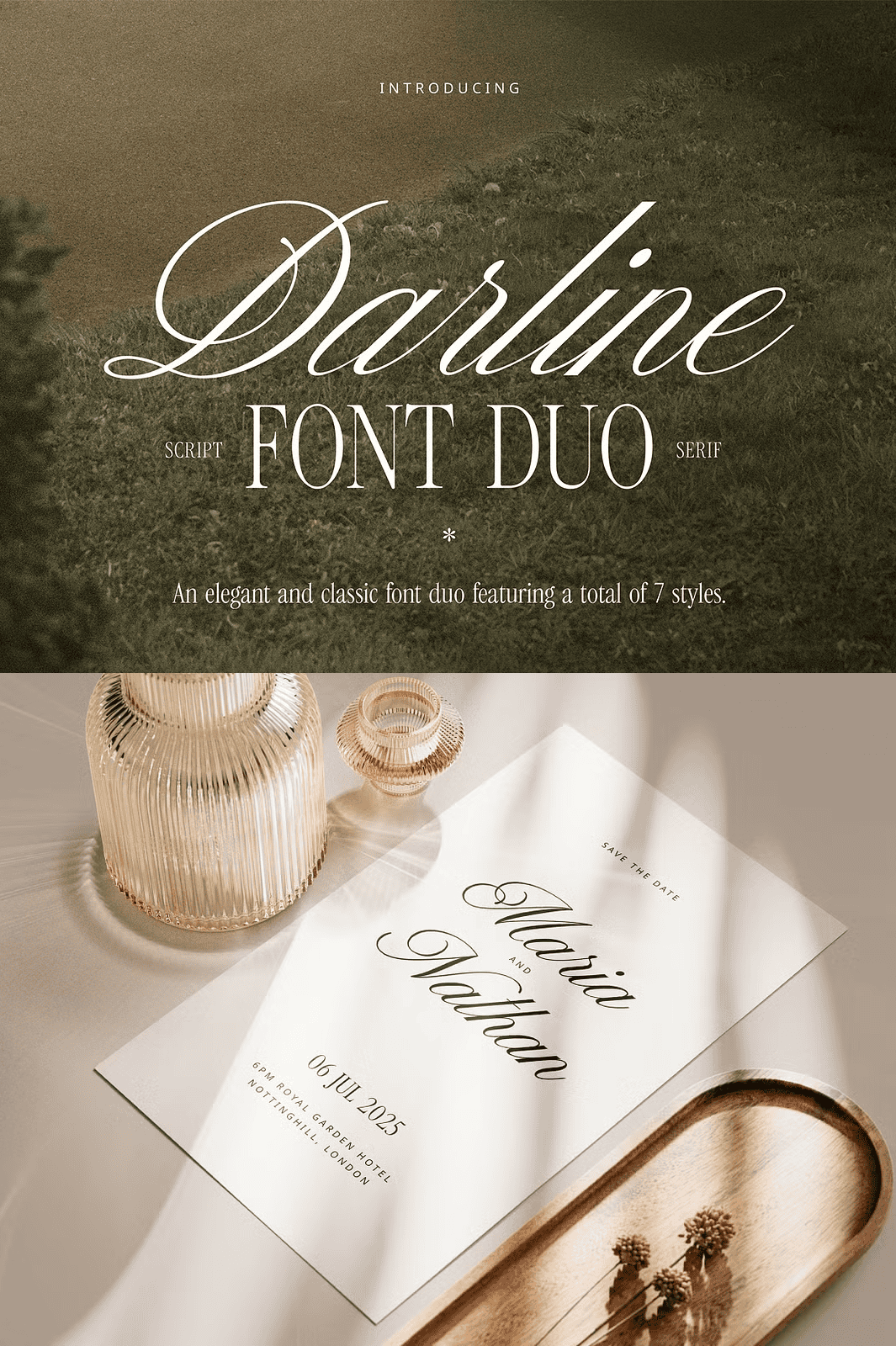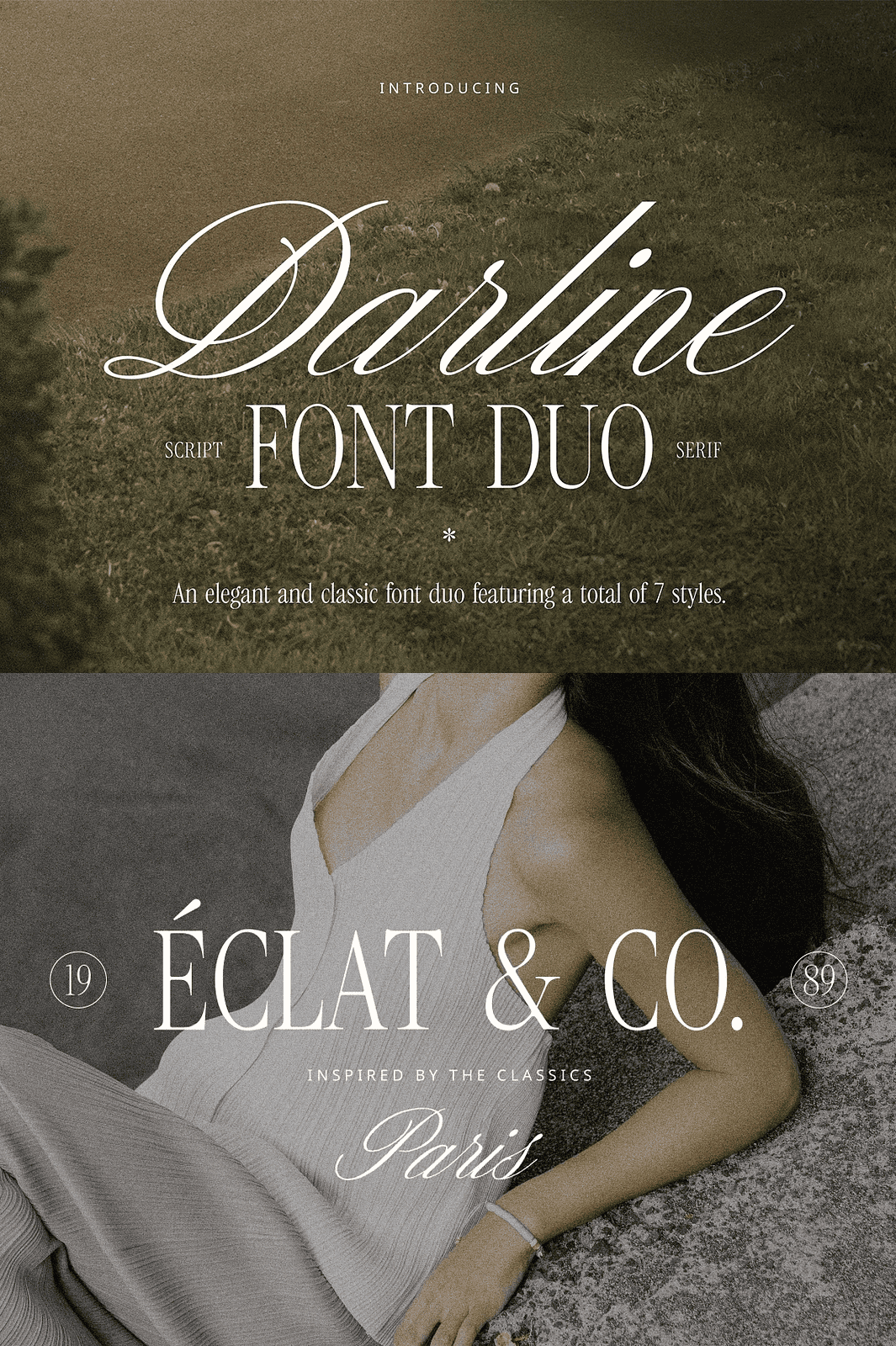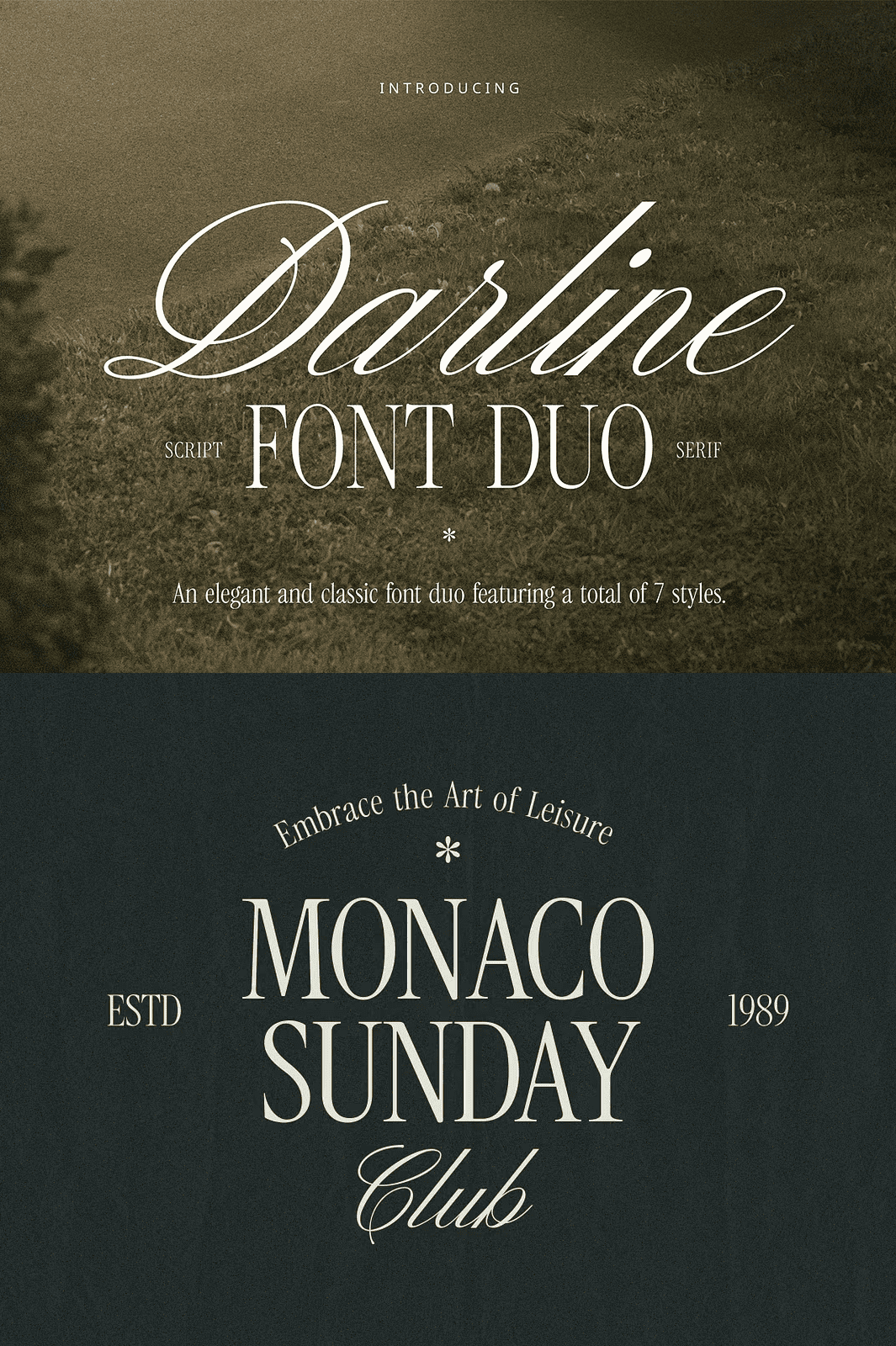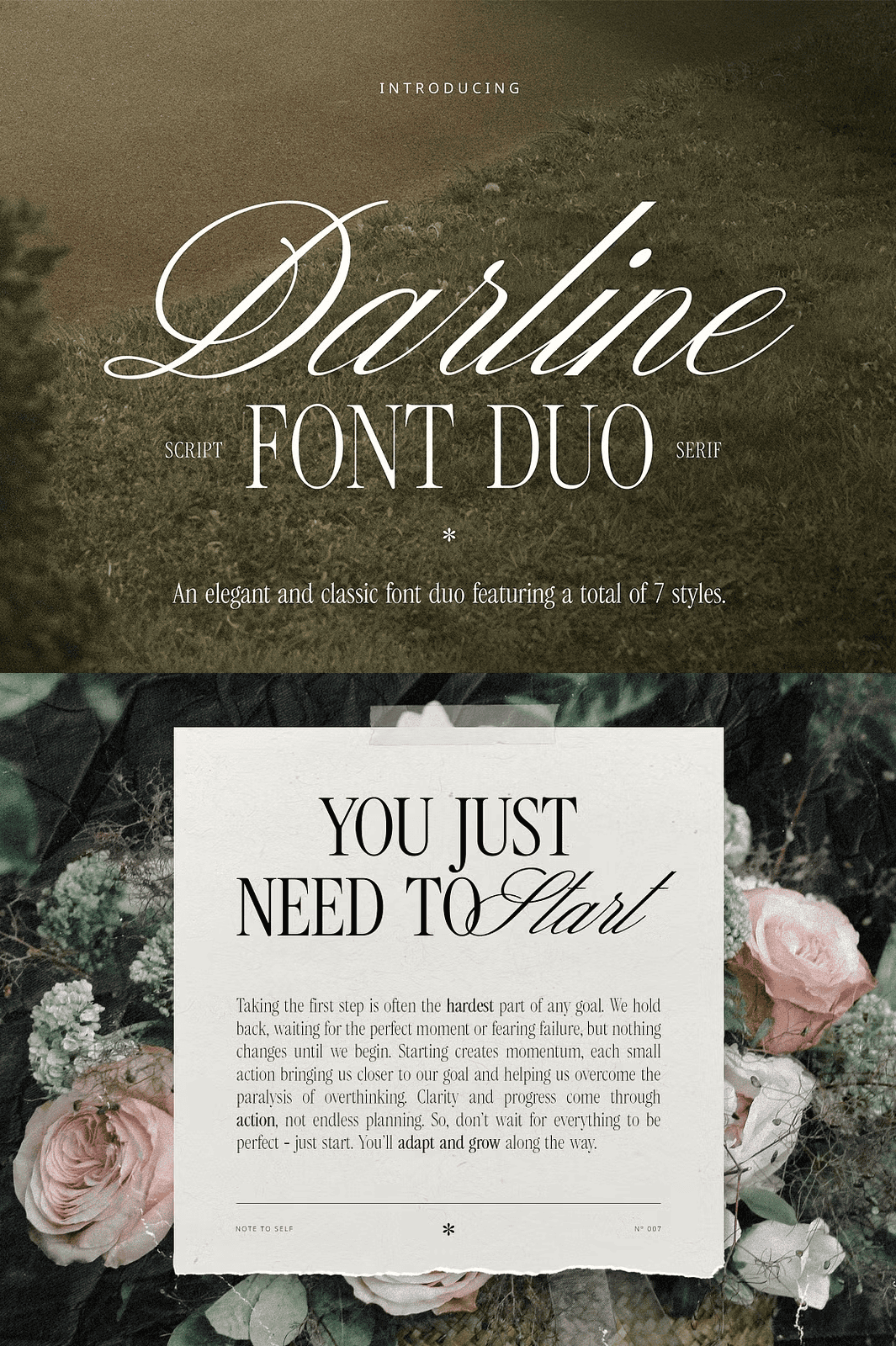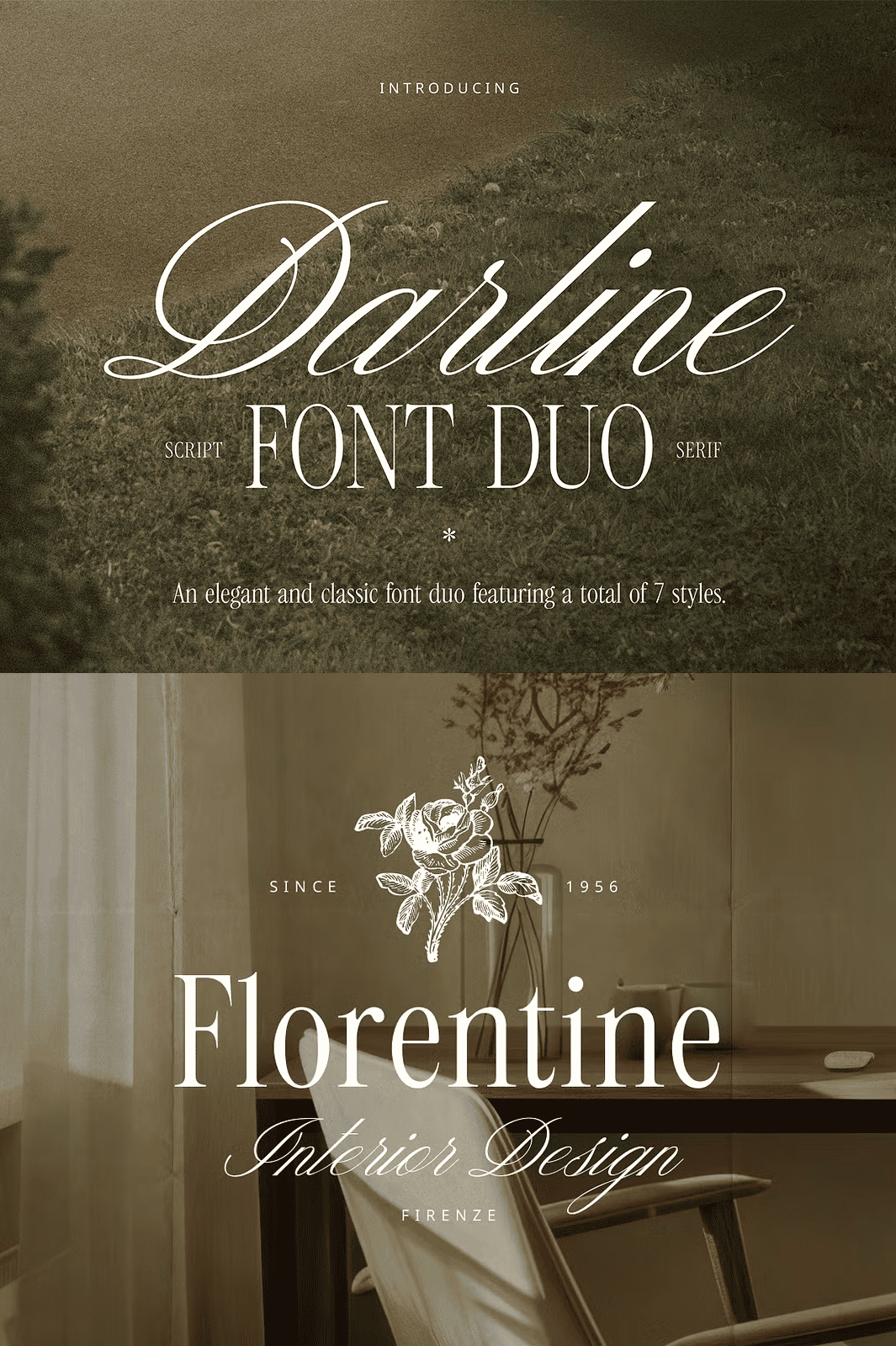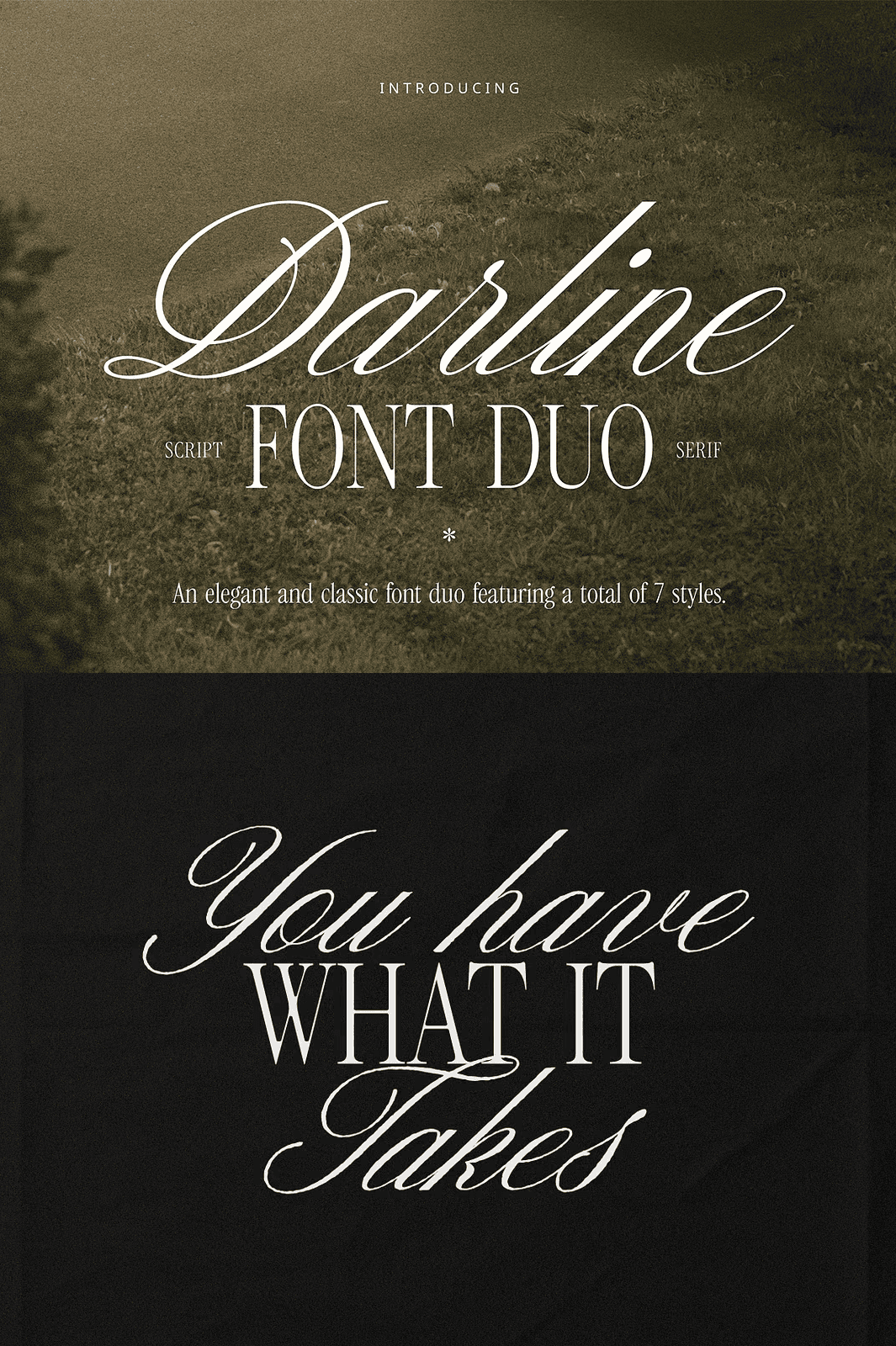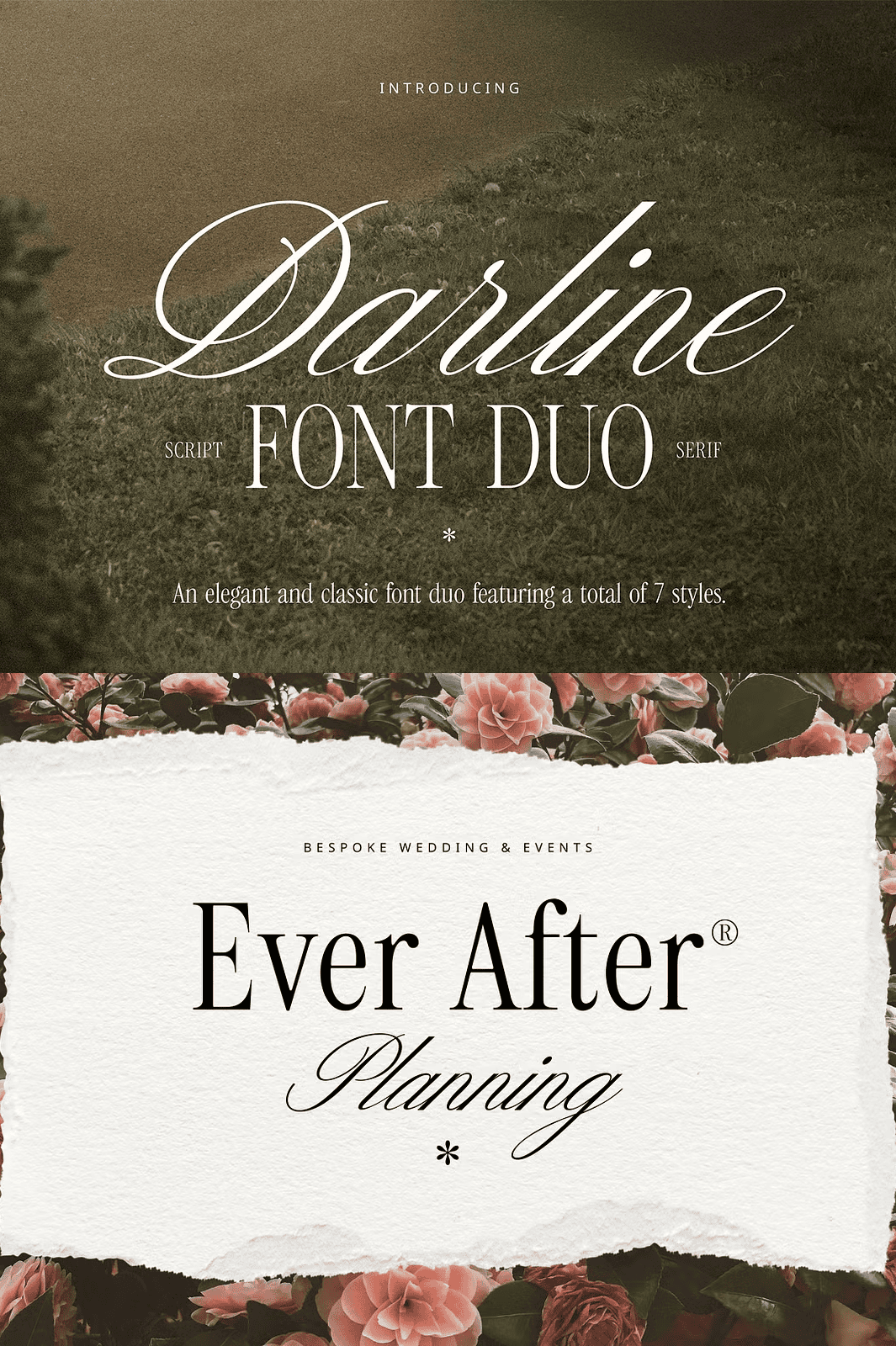
Unleash Elegant Contrast with a Thoughtfully Crafted Serif-Script Duo
Step into a world of refined visual balance with **Darline Font Duo**, a meticulously designed type family that masterfully blends the strength of serif typography with the grace of flowing script. This versatile duo brings together structured elegance and expressive fluidity, creating designs that are both sophisticated and deeply expressive. Whether you’re crafting a luxury brand identity, an elegant wedding invitation, or a stunning digital layout, Darline delivers a balanced, polished aesthetic that commands attention.
Engineered for professional creators and passionate designers alike, Darline Font Duo isn’t just a font — it’s a creative foundation. The pairing is intentional: the serif component adds authority and readability, while the script component injects personality and movement. Together, they form a dynamic duo that enhances contrast, improves readability, and boosts visual storytelling power across any medium.
Built for Creativity: 7 Distinct Styles Across Serif and Script Families
Maximize your design potential with **seven uniquely crafted styles** that offer endless variation and style control. The **Darline Serif** range provides three weight variations for precision and hierarchy:
– **Light** – Ideal for subtle headlines and delicate typographic layers
– **Regular** – The perfect mid-point for balanced body text and clean layouts
– **Bold** – Command attention in titles, logos, and impactful statements
The **Darline Script** family adds four expressive styles to match every mood and tone:
– **Regular** – Classic, fluid motion perfect for refined branding
– **Regular Slanted** – Adds subtle dynamic tension and modern flair
– **Aged** – Rustic, vintage-inspired touch for storytelling and nostalgic themes
– **Aged Slanted** – Time-worn elegance with a modern edge
Each variant is optimized for visual distinction while maintaining cohesive harmony, ensuring your design remains unified across multiple elements.
Design with Confidence Across 11 Global Languages
Reach wider audiences with **comprehensive multilingual support** covering **English, Italian, French, Spanish, German, Portuguese, Dutch, Danish, Norwegian, and Swedish**. Every character is meticulously crafted, including full diacritic support for accented letters and special symbols, so your text remains clean and professional — no matter the language.
Use Darline Font Duo for international branding, multilingual invitations, bilingual social media graphics, or cross-cultural campaigns. The design adapts seamlessly, eliminating the need for font switching or compromise.
Professional Features for Every Stage of Design
Deliver polished results with full access to:
– Full punctuation and mathematical symbols
– Advanced numbering systems (1, 2, 3… and Roman numerals)
– Currency signs and special characters
– Ligatures and contextual alternates for natural-looking text
– OpenType features for automatic stylistic adjustments
These tools let you focus on creativity — not technical limitations.
Bring Your Vision to Life with a Typography Duo Designed for Purpose
Darline Font Duo isn’t just a font — it’s a design companion. Whether you’re a seasoned typographer or a passionate beginner, this duo empowers you to create work that feels intentional, polished, and deeply personal.